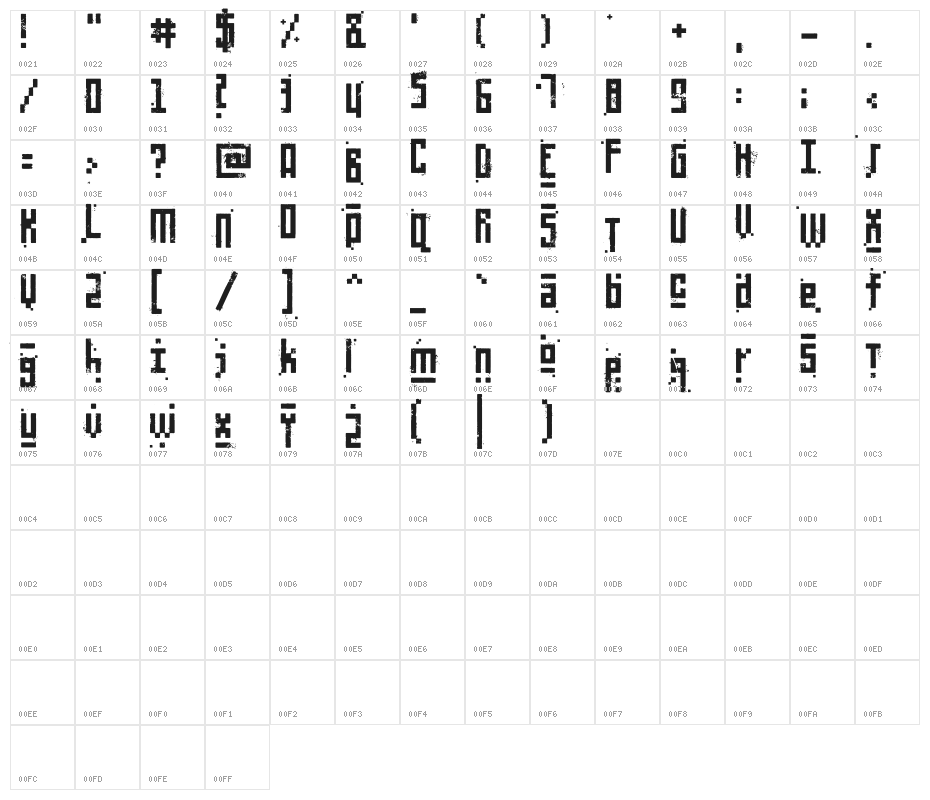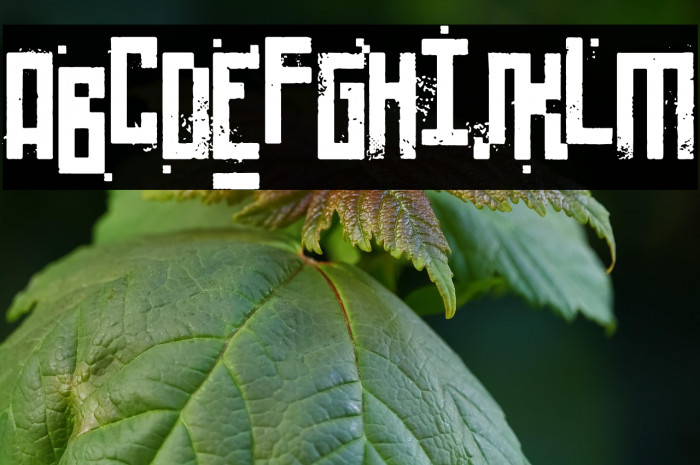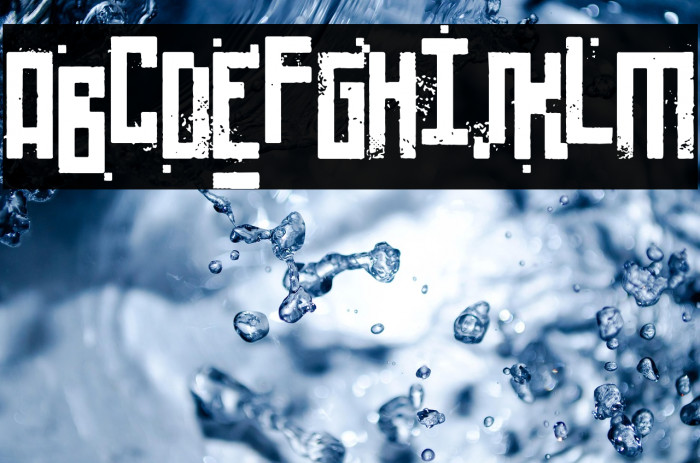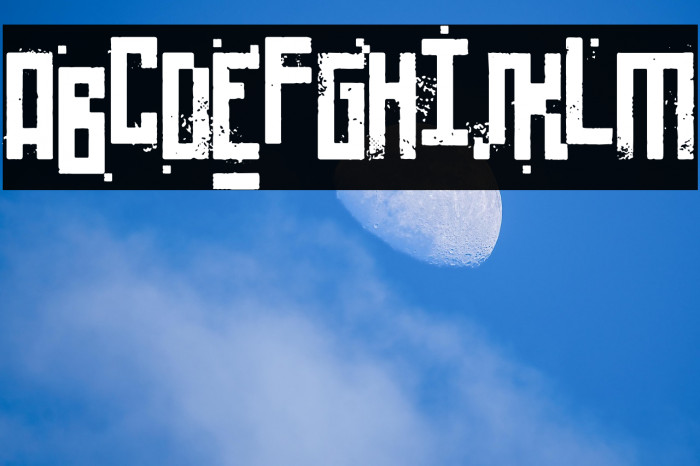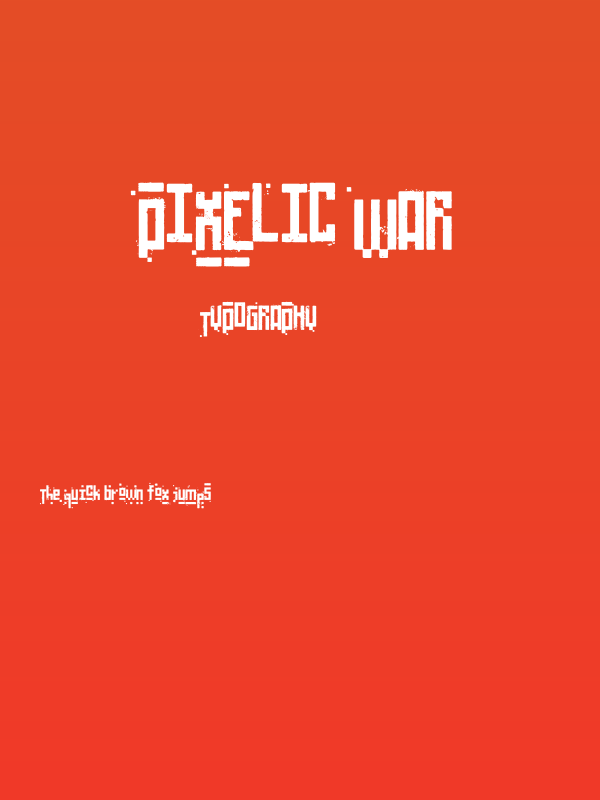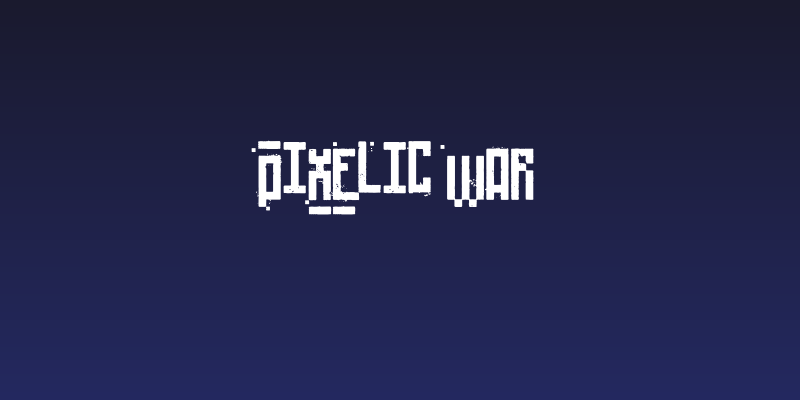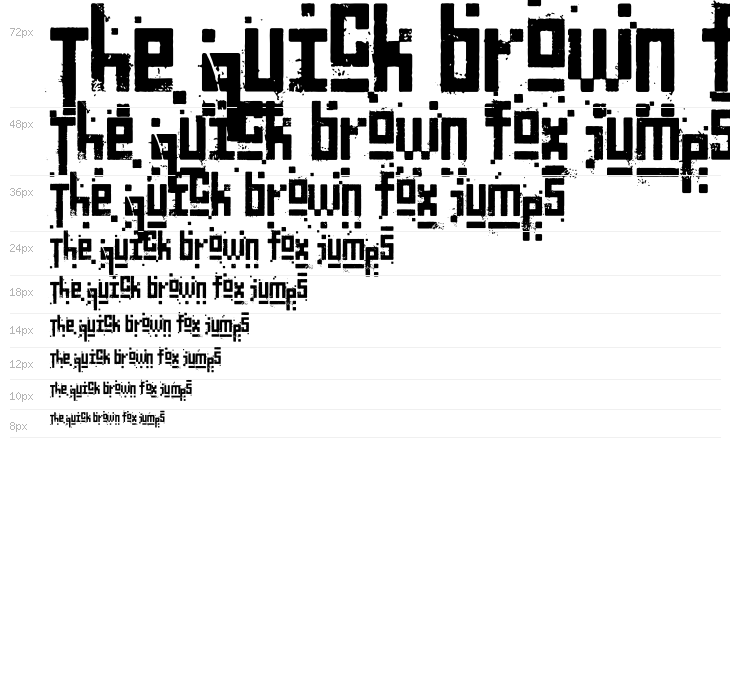
Pixelic War Font
Pixelic War Description
This font features a bold, pixelated design with a distressed, grunge texture. The characters are blocky and geometric, reminiscent of retro digital displays or video game graphics. The uppercase and lowercase letters maintain a consistent height, contributing to a uniform appearance. Numbers and special characters follow the same stylistic approach, adding to the cohesive look. The distressed texture gives it a rugged, worn-out feel, making it suitable for designs that require a gritty or vintage digital aesthetic.
| Overall Style | Vintage, Digital, Grunge |
| Use Case | Logos, Posters, Digital Art |
| Proposed Projects | Ideal for video game graphics, retro-themed posters, digital art projects, and edgy branding materials. |